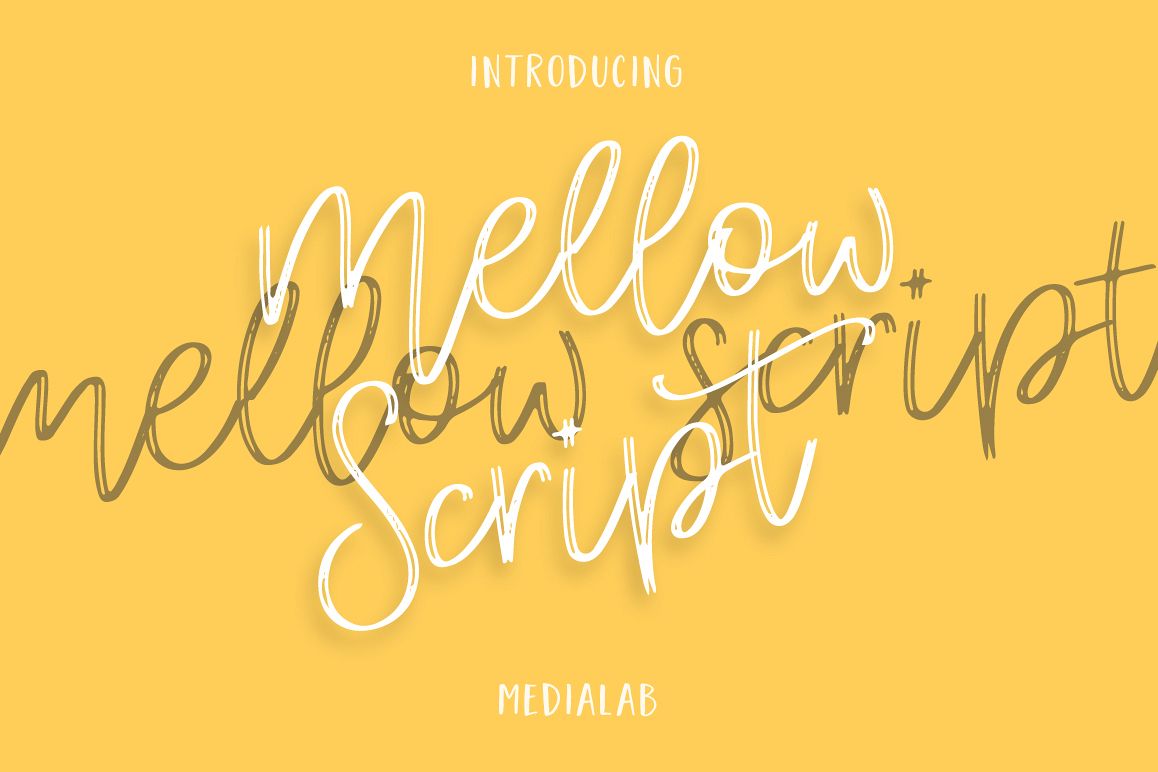
Mellow handwritten font
Mellow script
This handwritten script has been attentively written, with gentle curves to produce a font thats completely distinctive and original. Perfect for adding a elegant and unique touch to your lettering projects and branding